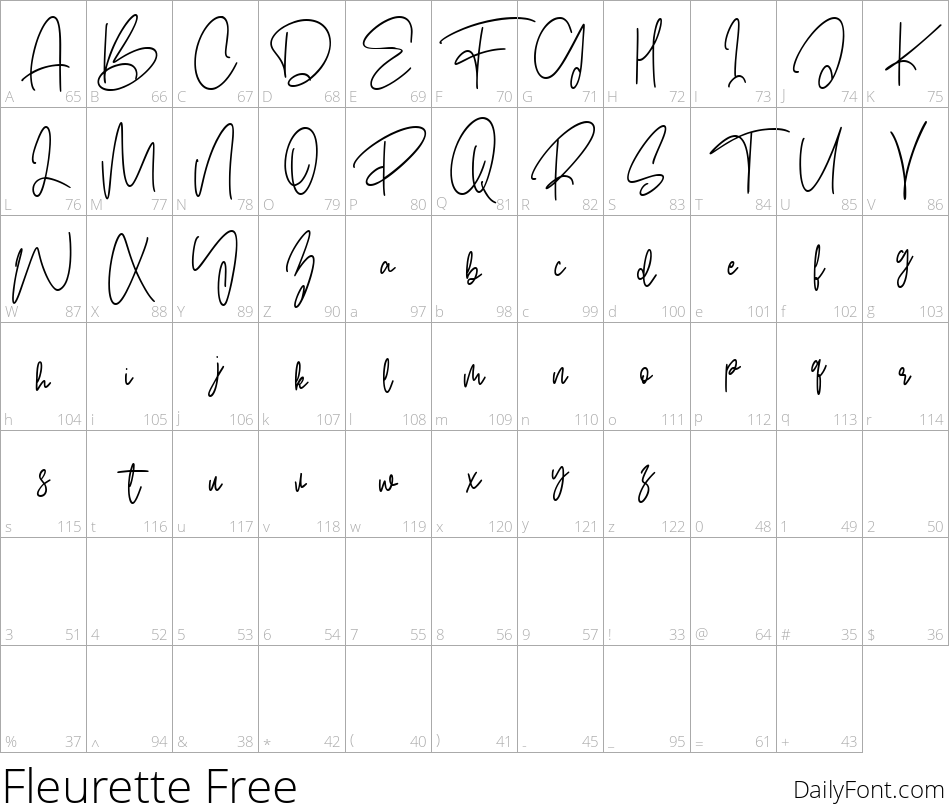
Fleurette
Discover the whimsical charm of Fleurette, a free-spirited handwritten font that effortlessly captures the essence of elegance and playfulness. Perfect for adding a touch of personality to your designs, this versatile font is ideal for crafting wedding invitations, stationery, social media posts, and a wide range of creative projects.
Fleurette's unique blend of flair and sophistication makes it an excellent choice for those seeking a font that exudes warmth and charm. Its relaxed style effortlessly conveys a sense of romance, making it a perfect fit for wedding-related designs, such as save-the-dates, invitations, and thank-you cards.
Beyond its romantic appeal, Fleurette's versatility shines when used for social media posts, blog titles, and captions. Its handwritten flair adds a touch of humanity to digital content, making it an excellent choice for creatives looking to stand out from the crowd.
Whether you're seeking a font to add a touch of whimsy to your designs or need a unique solution for a special project, Fleurette's incredible versatility makes it an excellent choice. With its effortless blend of elegance and playfulness, this charming handwritten font is sure to delight designers and non-designers alike.